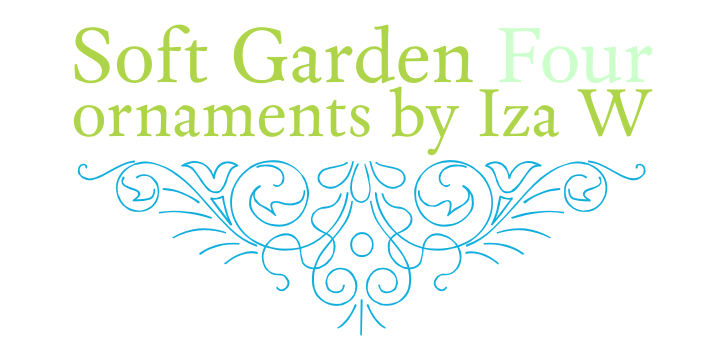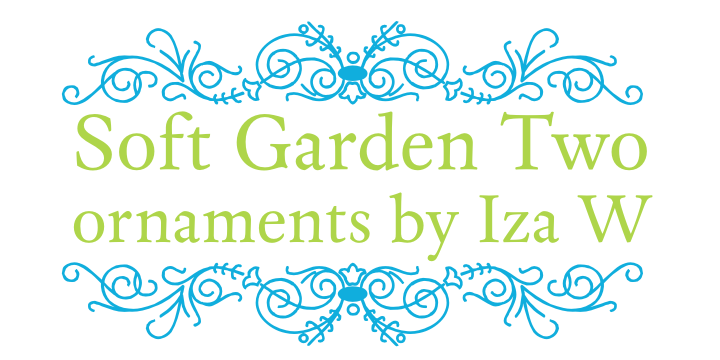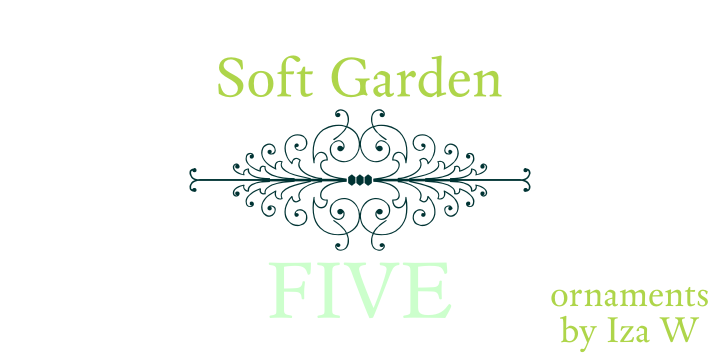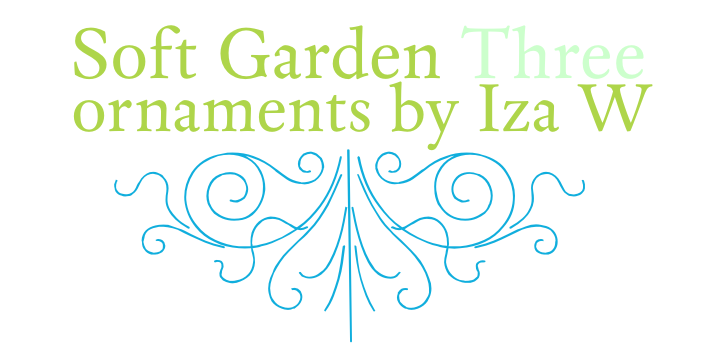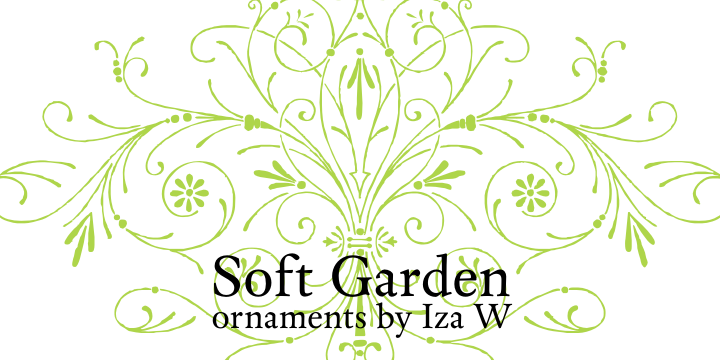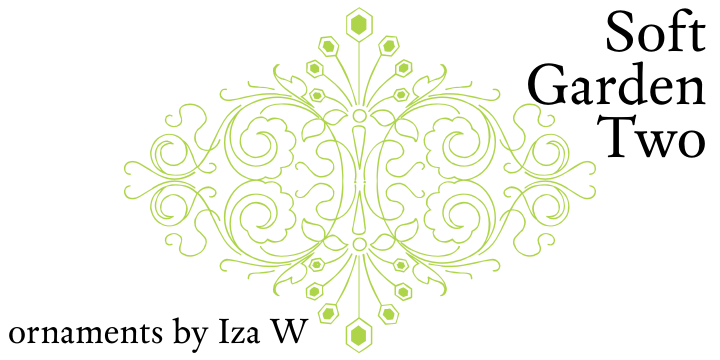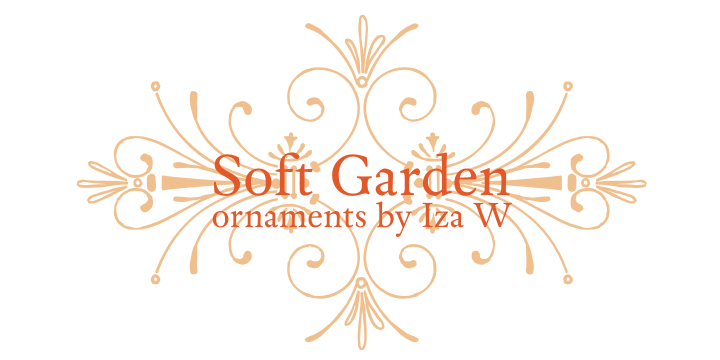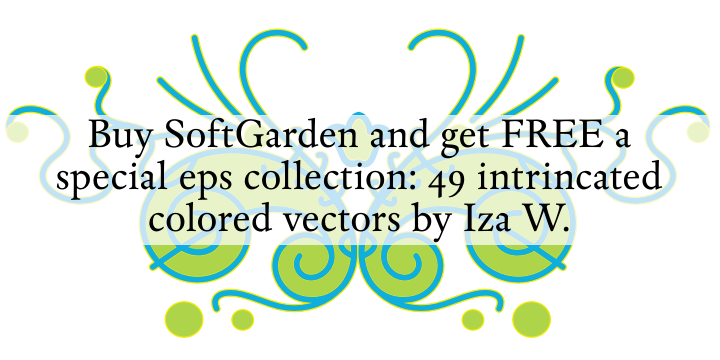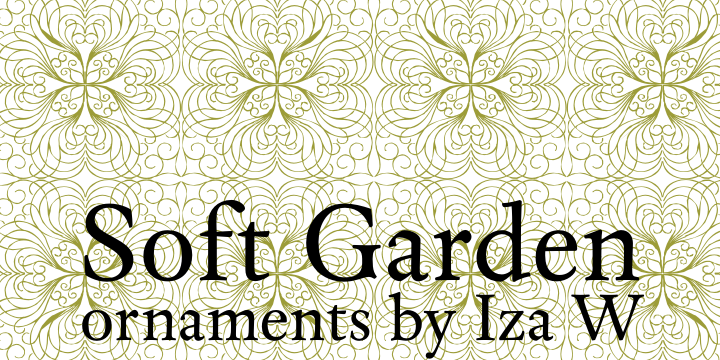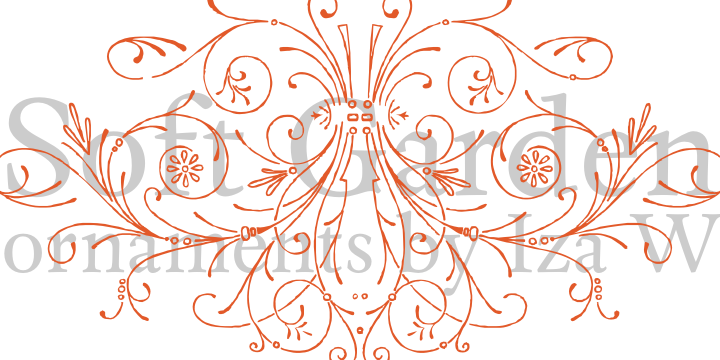
Soft Garden is a dingbat font family. This typeface has six styles and was published by Intellecta Design.
SoftGarden is a collection of ornaments, available in font format. Good to use in arts and crafts works, books of arts, stationery, publishing stuff and many other applications. Another delicate collection by Iza W from Intellecta Design. Besides the font itself, buying SoftGarden you get FREE a special set of eps: 49 intrincated and feminine colored versions of SoftGarden by Iza W (see the banners at the gallery section with some samples of this collection). The EPS are ready to use and Royalty-Free licensed.